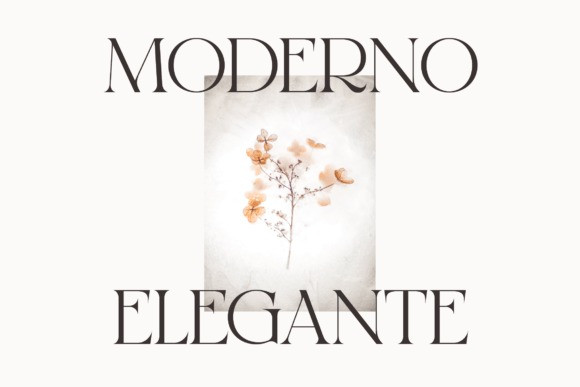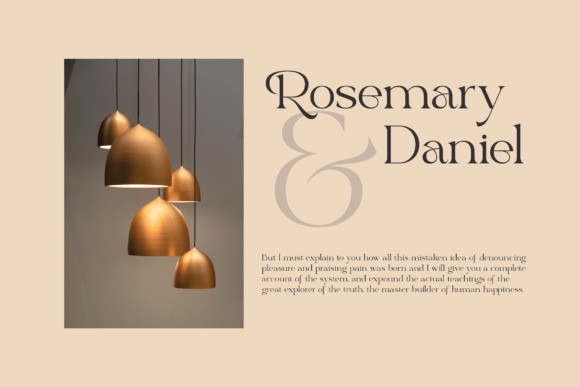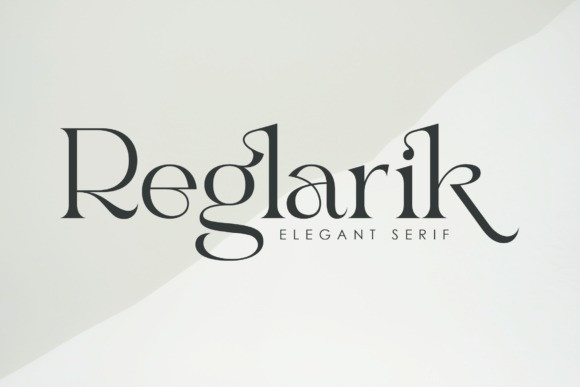
Regularik Font
Regularik Font is a stylish and modern serif font. Its uniquely shaped characters and distinct charm will help you create gorgeous, classy compositions. This font is PUA encoded which means you can access all the glyphs and ligatures with ease!
Classification: Modern Fonts, Serif Fonts